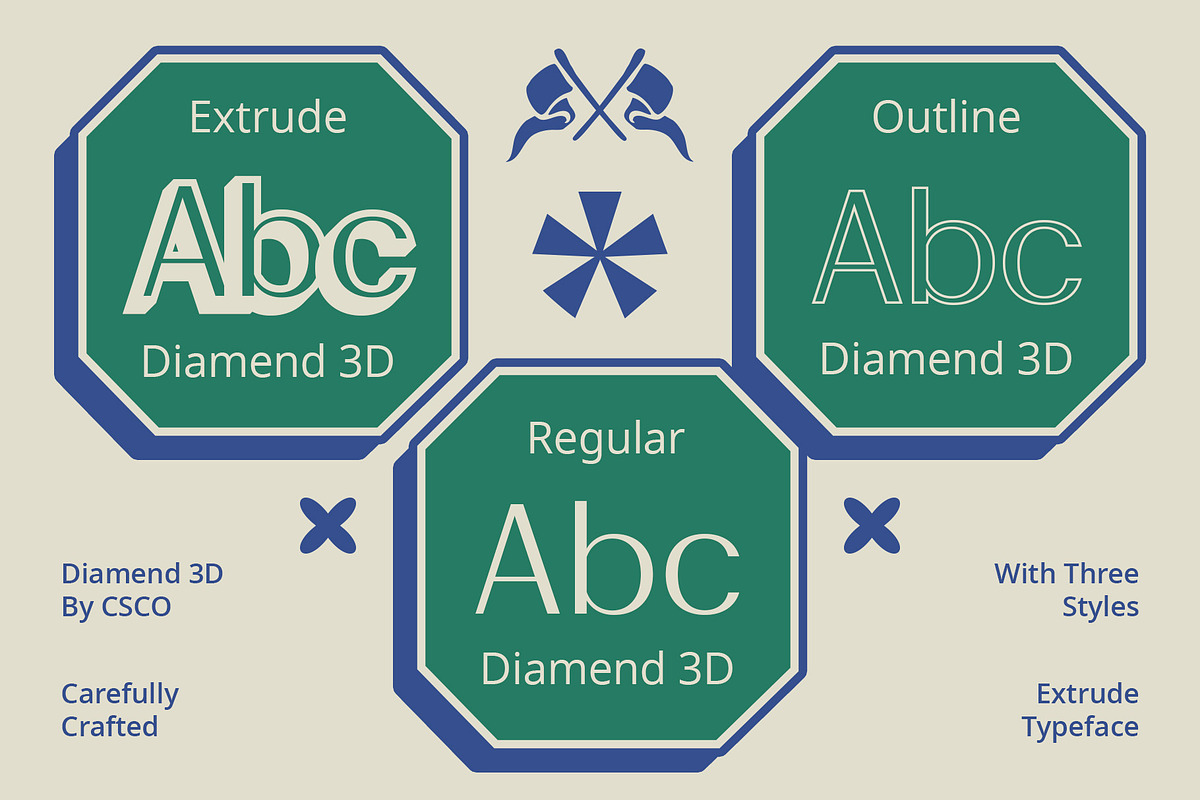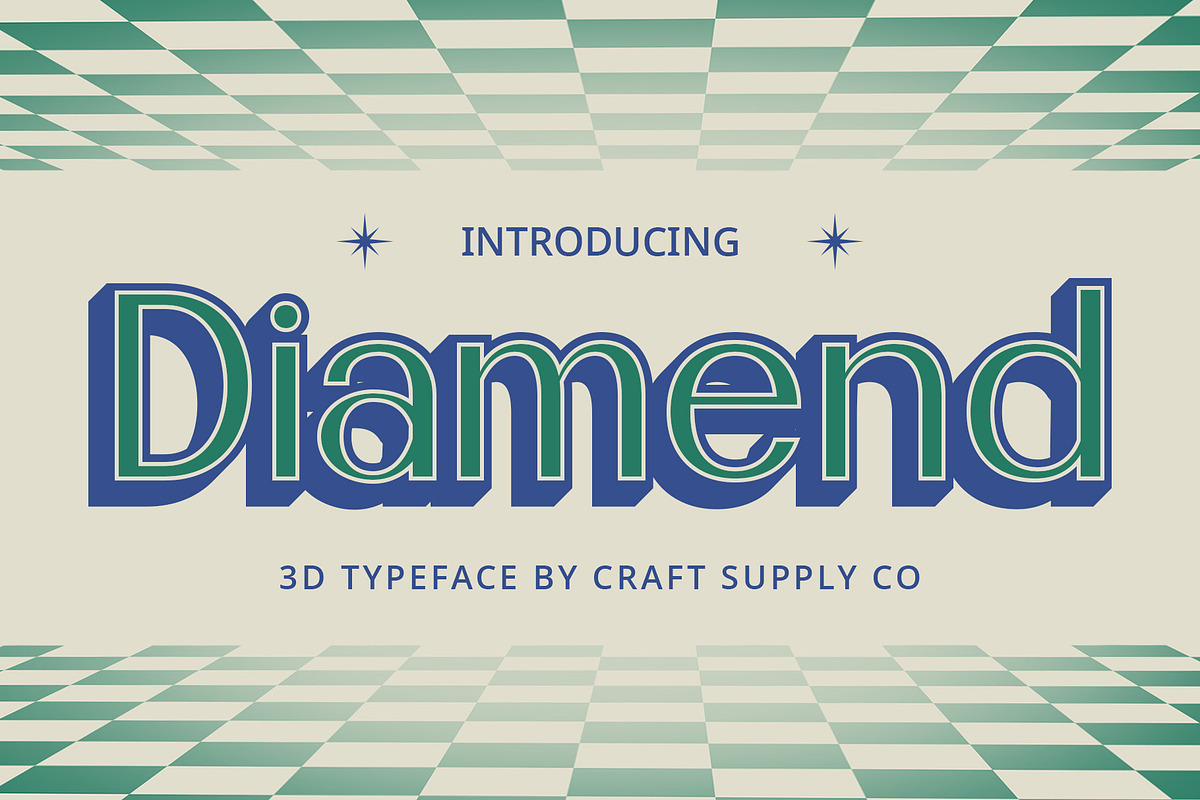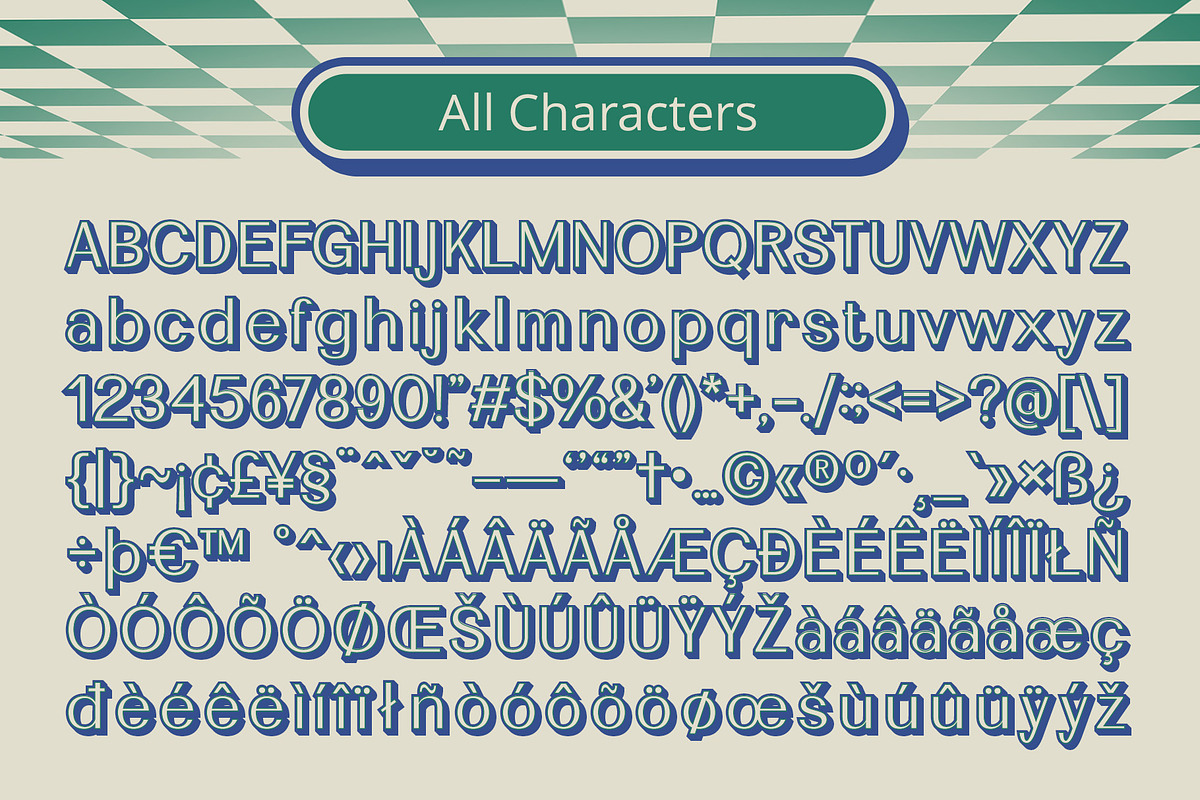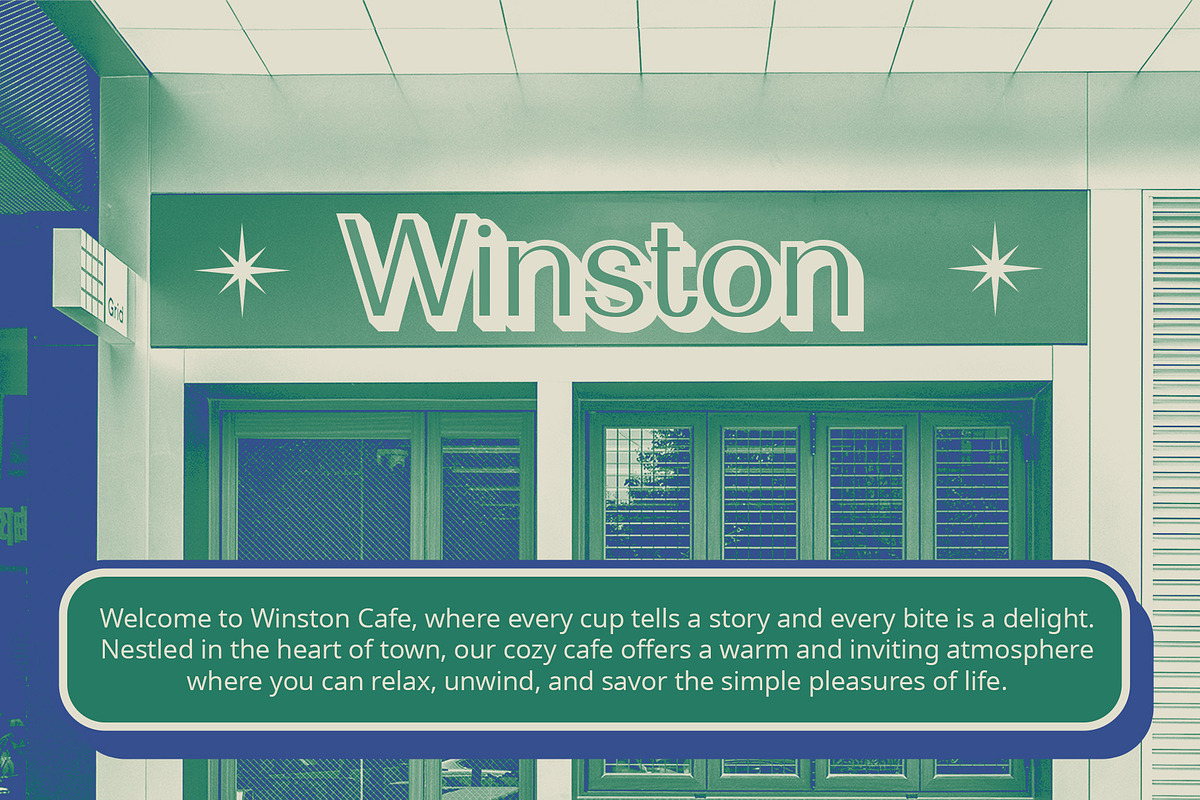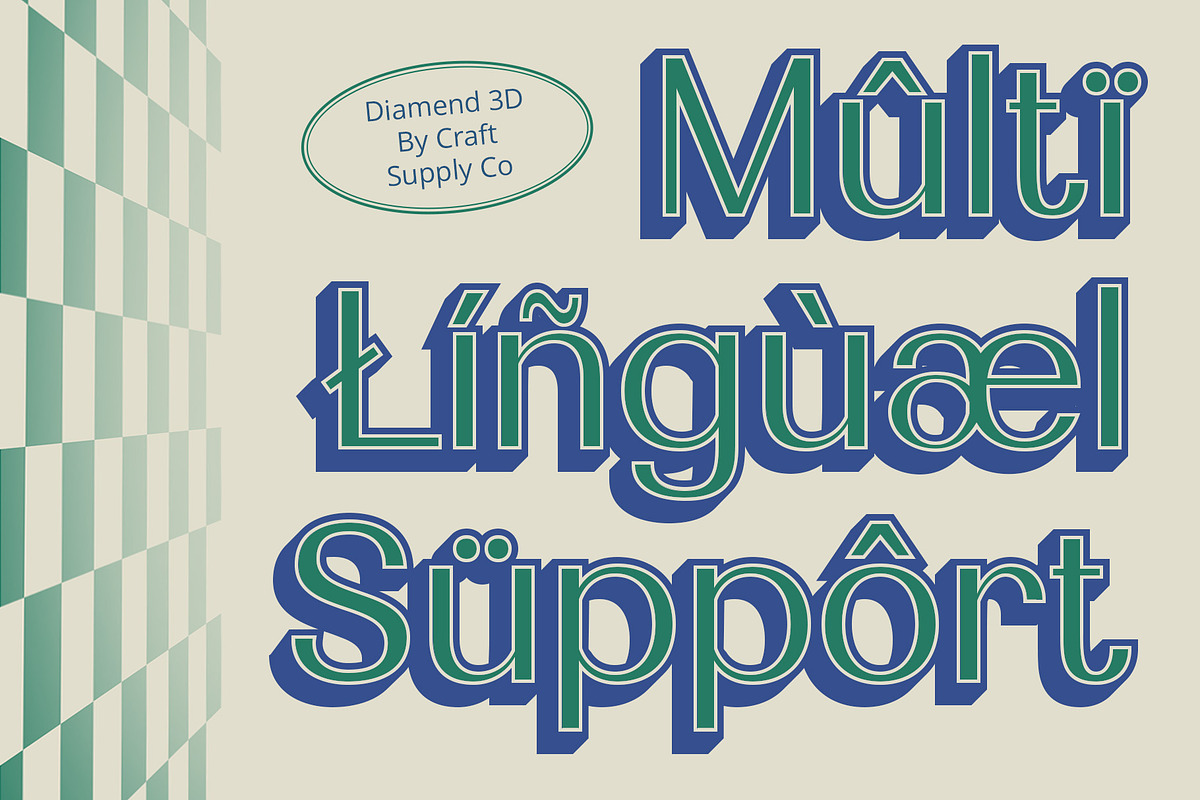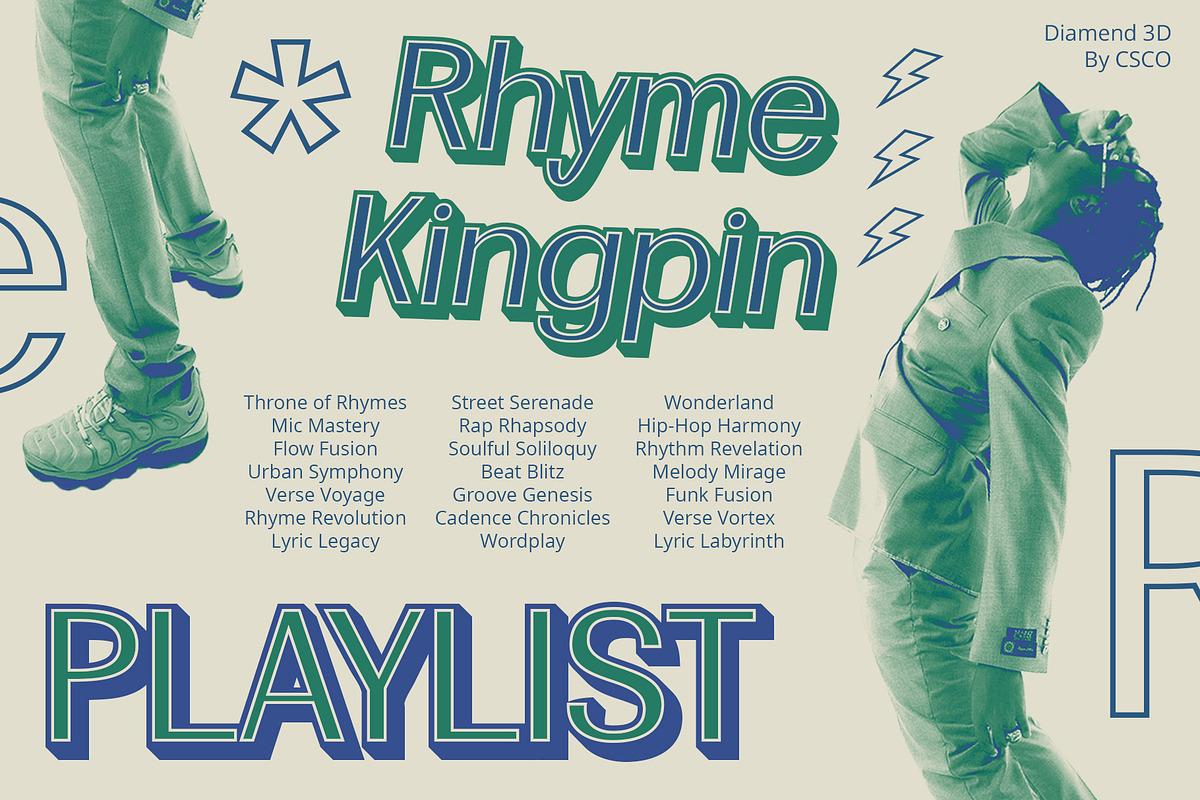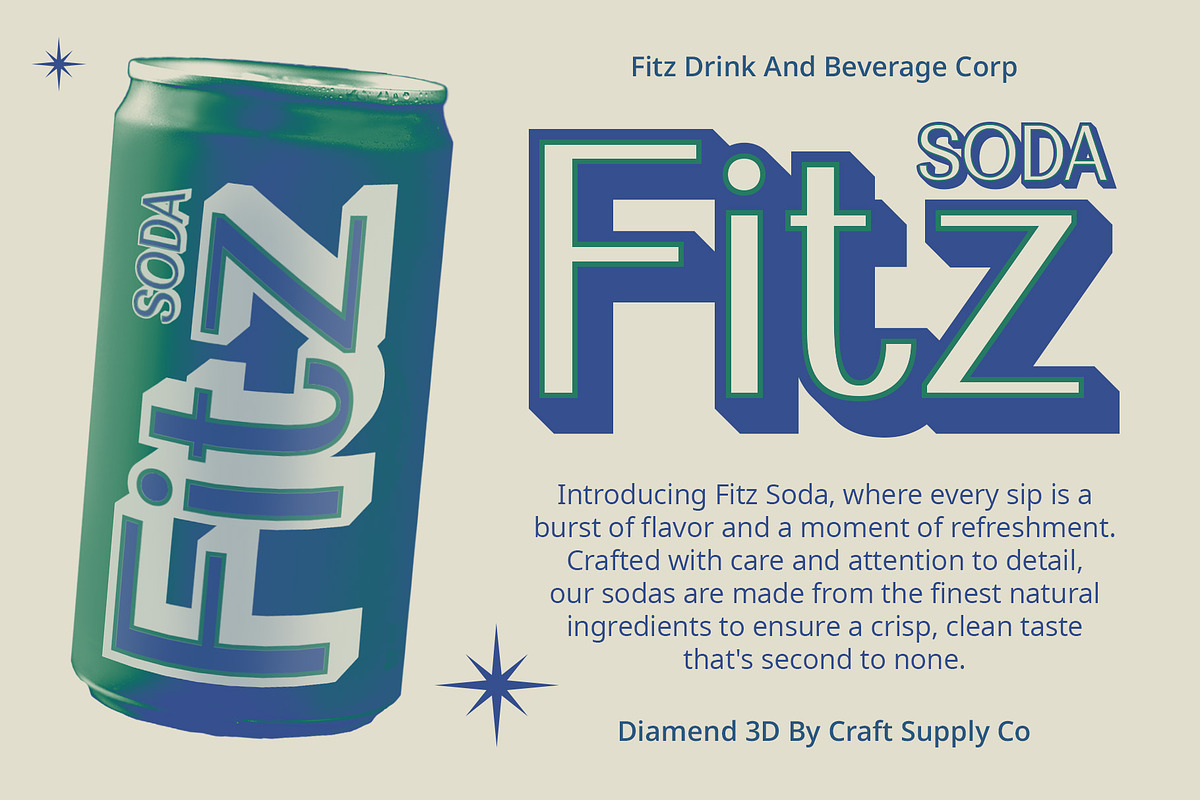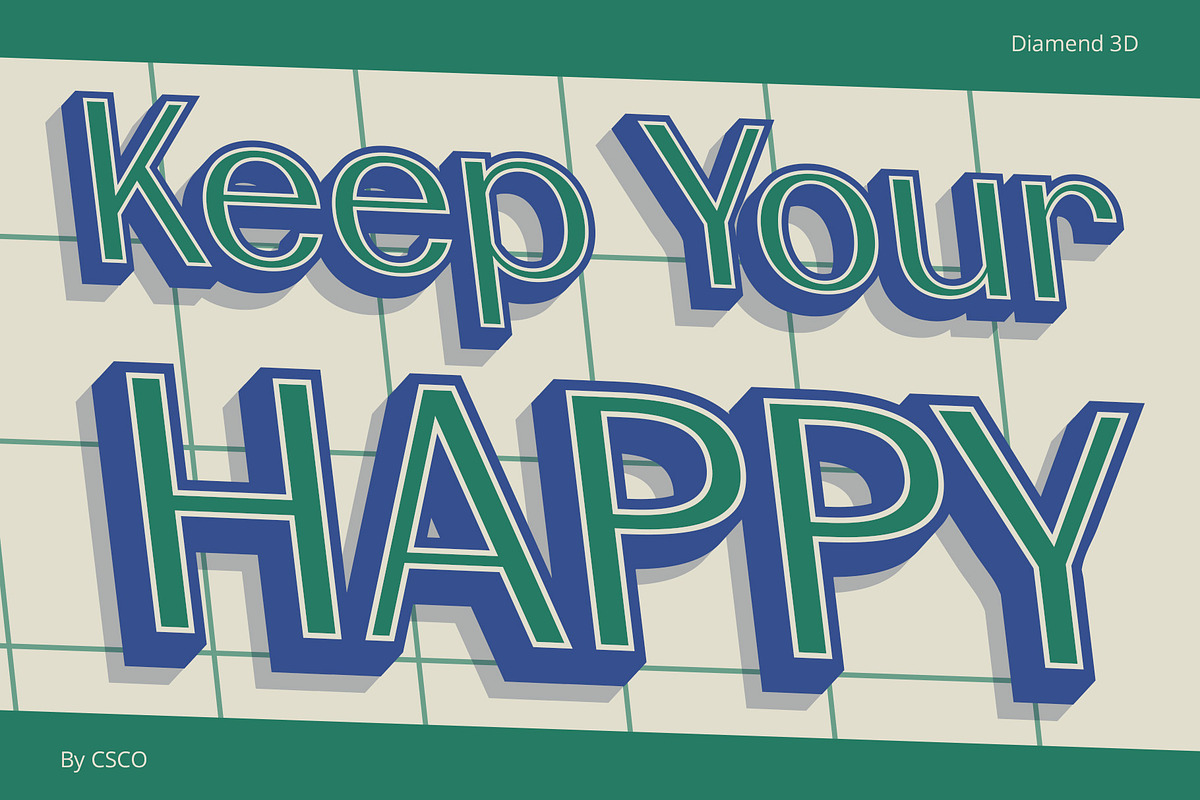
Diamend 3D
Diamend 3D: Elevating Display Typography
Vibrant Sans Serif Design Diamend 3D features a sleek sans serif design with high contrast, offering a modern and polished appearance. Its clean lines and sharp edges contribute to its contemporary vibe.
Playful Yet Polished With its neat and orderly presentation, This font exudes a playful charm that is balanced by its refined aesthetics. This combination makes it versatile for various design projects.
Eye-Catching 3D Effects Enhanced with captivating 3D effects, This font takes display typography to new heights. Each character pops off the page, grabbing the viewer’s attention instantly and ensuring maximum impact.
Perfect for Eye-Catching Displays Tailored for eye-catching displays, This font is ideal for advertisements, signage, and branding materials. Its dynamic appearance guarantees that your message will not go unnoticed.
The Ultimate Display Font This font stands out as the ultimate display font, combining sleek sans serif design, playful nuances, and eye-catching 3D effects. Whether used for digital or print projects, it promises to elevate your designs and leave a lasting impression on your audience.
- Diamend Regular
- Diamend Outline
- Diamend Extrude Right
- Diamend Extrude Left